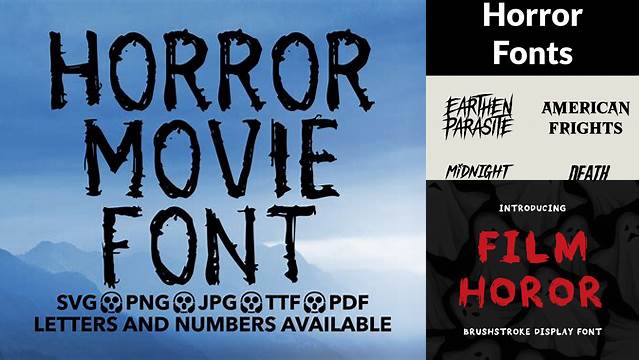
Best Horror Movie Font Generators: Unleash The Terror
Hey guys, ever wondered how to instantly inject some serious horror vibes into your projects? We're diving deep into the world of horror movie fonts! So, if you're looking to create a chilling poster, a terrifying trailer, or even just want to give your social media a spooky makeover, you're in the right place. Let's talk about how a horror movie fonts generator can be your secret weapon. Using the right font is seriously crucial. It's like the first note in a suspenseful score – it sets the mood, and it makes your audience feel exactly what you want them to feel: terrified. I mean, think about it. Would Halloween be as iconic if the title card was in Comic Sans? Definitely not! We are here to help. This guide will give you everything you need to get started.
Why Horror Fonts Matter for Your Projects
Okay, let's get real. Why should you even care about fonts for your horror projects? Well, the answer is simple: they're the visual voice of your fear. A good horror font doesn't just display text; it screams it. It whispers threats. It builds tension. When you're crafting anything related to horror, whether it's a short film, a game, a flyer for a haunted house, or just a creepy invitation, the font you choose plays a massive role in setting the atmosphere. It's all about creating an immersive experience. Imagine watching a horror movie, right? The suspenseful music, the dark shadows, the sudden jump scares – all of it works together to make your heart race. The font does the same thing, but with words. It sets the stage, hints at the terror to come, and gets the audience in the right frame of mind. This is the ultimate goal.
First off, the right font makes a statement. Think about the classic horror movie titles: they're bold, they're often dripping with something, and they're immediately recognizable. They tell you what you're in for before the movie even starts. The fonts themselves become iconic parts of the genre. Then, the fonts help create cohesion. Consistency is key. The same font used across your project reinforces your brand, and helps your audience better understand the mood. If you're running a haunted house, matching the font on your signs with the font on your website creates a sense of continuity and professionalism, which can be really helpful if you're trying to scare people into spending money to be terrified. Using different types of fonts conveys different styles of horror. Gothic fonts can lend a classical feel, while something more modern could suggest a tech-based thriller. The fonts you choose can play around with the kind of terror you want to evoke. The choice is up to you. Using the right font is basically like giving your audience a heads-up about what they're about to experience. It's a promise of chills, thrills, and maybe a few nightmares. If you're serious about horror, it's something you can't ignore.
Top Horror Movie Fonts to Consider
Alright, let's get into the good stuff: the fonts. Here are some of the best and most commonly used fonts when it comes to horror. These fonts are really great for any kind of horror project. They capture the essence of the genre perfectly, and you can use them to create that perfect scream-worthy visual. I mean, they're practically the visual embodiment of fear, okay? So buckle up, and let's dive in! Horror movie fonts can vary quite a bit. From classic gothic styles, to more modern, edgy looks, the font landscape in the horror world is really quite vast.
Classic Gothic Fonts: Think about the old black and white movies. These fonts are all about elegance and foreboding. They evoke a sense of history, mystery, and an impending sense of dread. Fonts like “Creepster” is perfect if you want that gothic horror vibe. Also, “Nosifer” looks like something from a classic vampire movie. It's got that long, elegant feel. These fonts are pretty perfect for anything with vampires, ghosts, or dark castles. Also, the older style makes your horror stuff feel more like a classic. They’re timeless for a reason, so you really can't go wrong. Another classic is “Ghoulish”. It's bold, it's creepy, and it's definitely not messing around. These fonts are all free to use on your own projects, so start downloading! Don't sleep on gothic fonts. They are the perfect start for your horror journey.
Modern & Edgy Fonts: If you're looking for something a bit more contemporary, then you're in luck. This style of font can give your project that cutting-edge, modern feel. Something like “Nightmare” can work. It’s all jagged lines and sharp angles, and it’s super effective for grabbing attention. Or, try “Terror”. It's a bit more industrial and gritty, and it's perfect for anything involving psychological horror or a more urban setting. “Aggro” is another really cool option. It's bold, and it's aggressive, and it just screams “danger”.
Handwritten Fonts: These fonts bring a personal, unnerving touch. They look like they're scribbled by a madman, which is exactly what you want, right? “Bloody” is a classic, with the drips and the splatters. “Death Note” is another great font that has a bit of an Asian aesthetic. Also, “Scream” is the perfect font if you're trying to recreate that whole slasher movie feel.
Each font style has its own strengths. When you know what style to use, it’s much easier to match the style with the specific project you're working on. So, there you have it, a bunch of great fonts that will help make your horror movie dreams come true. Choose wisely, and go create something terrifying.
How to Use a Horror Movie Fonts Generator
Alright, guys, let's get down to the nitty-gritty: how do you actually use a horror movie fonts generator? Seriously, it's way easier than you might think. These generators are your shortcut to instant fear, giving you a preview of how your text will look in different fonts. The process is really simple: first, you find a generator online. Then, you type in your text. Then, you browse. Then, you download. Easy peasy, right?